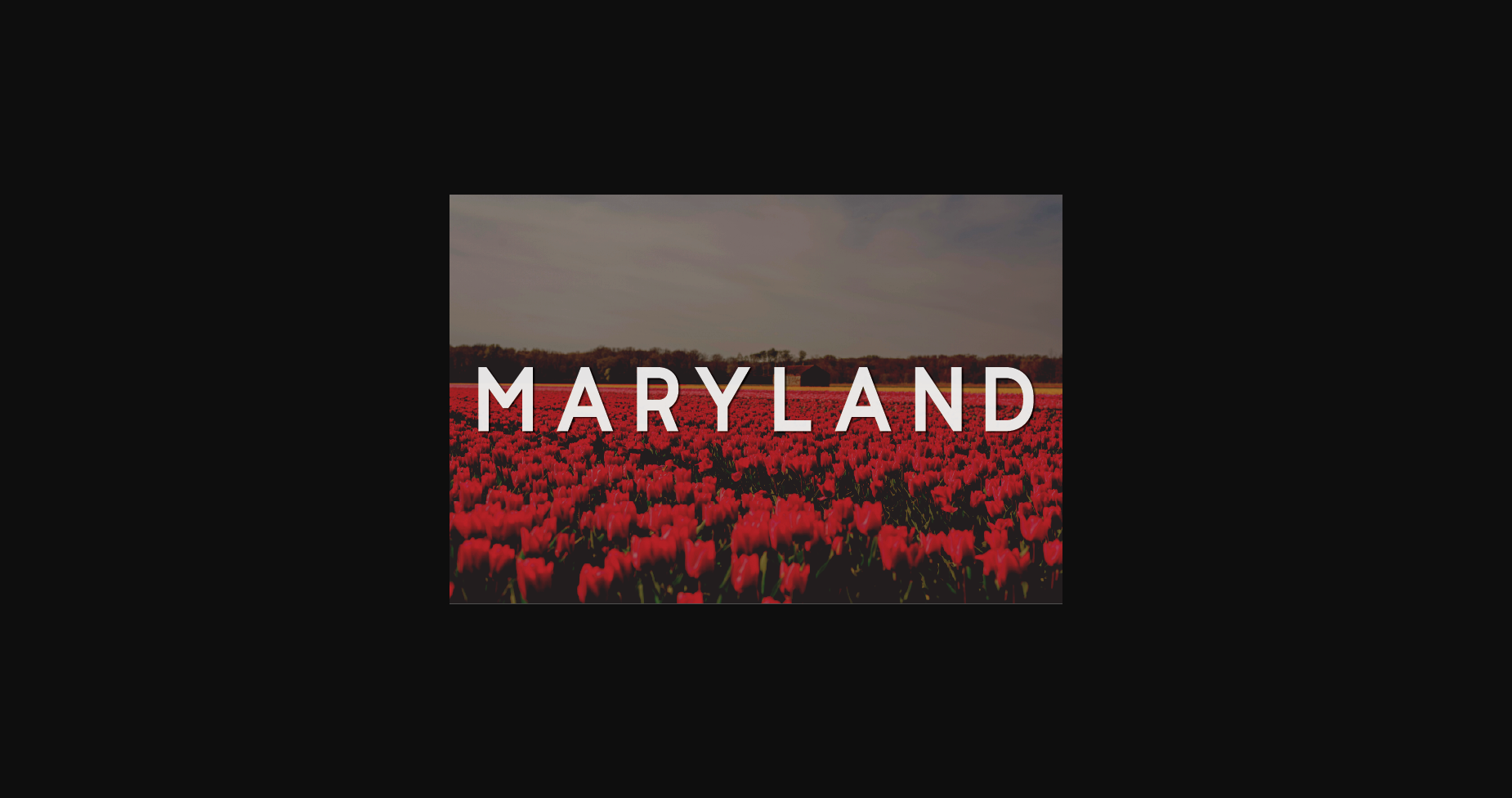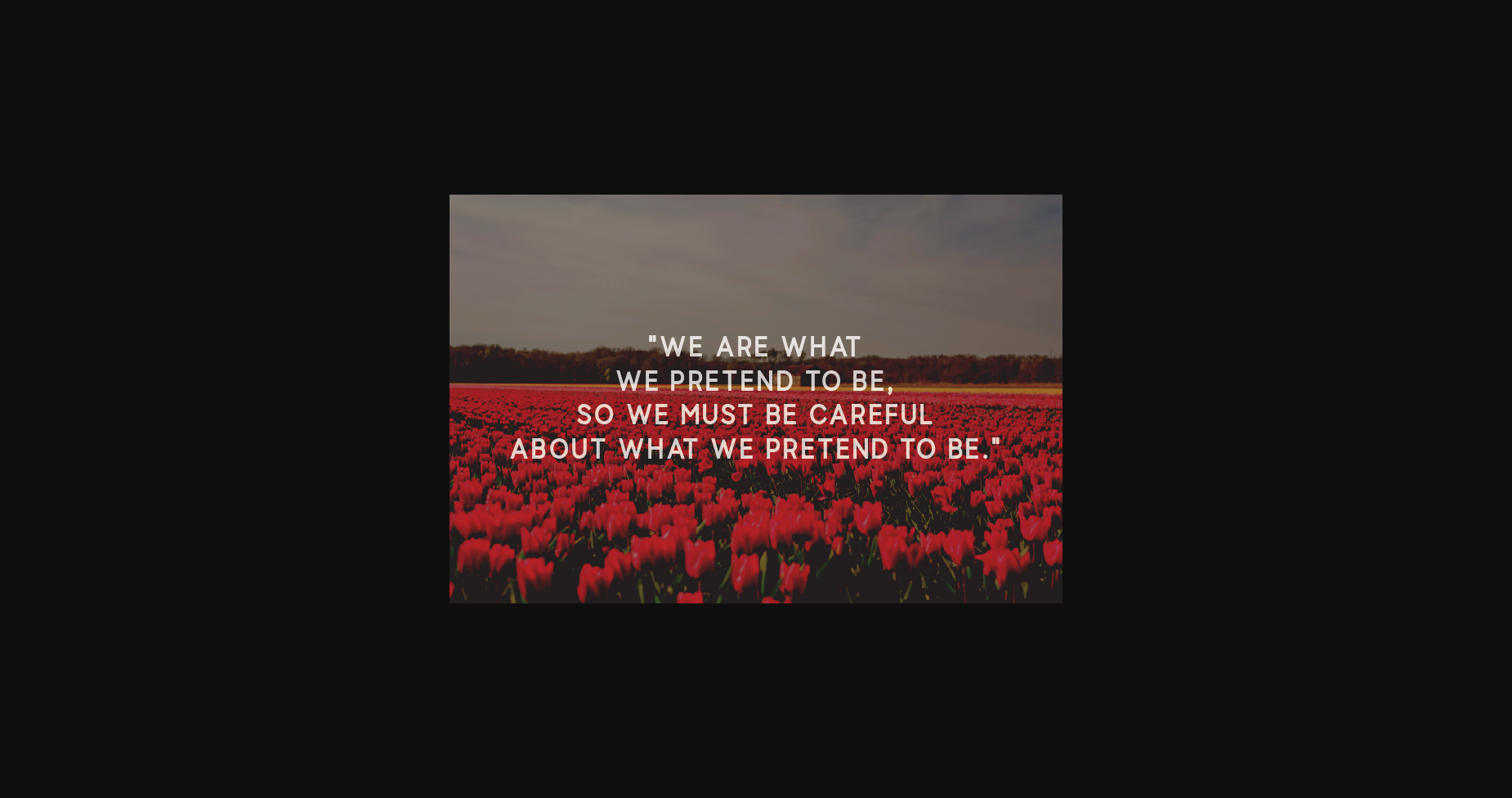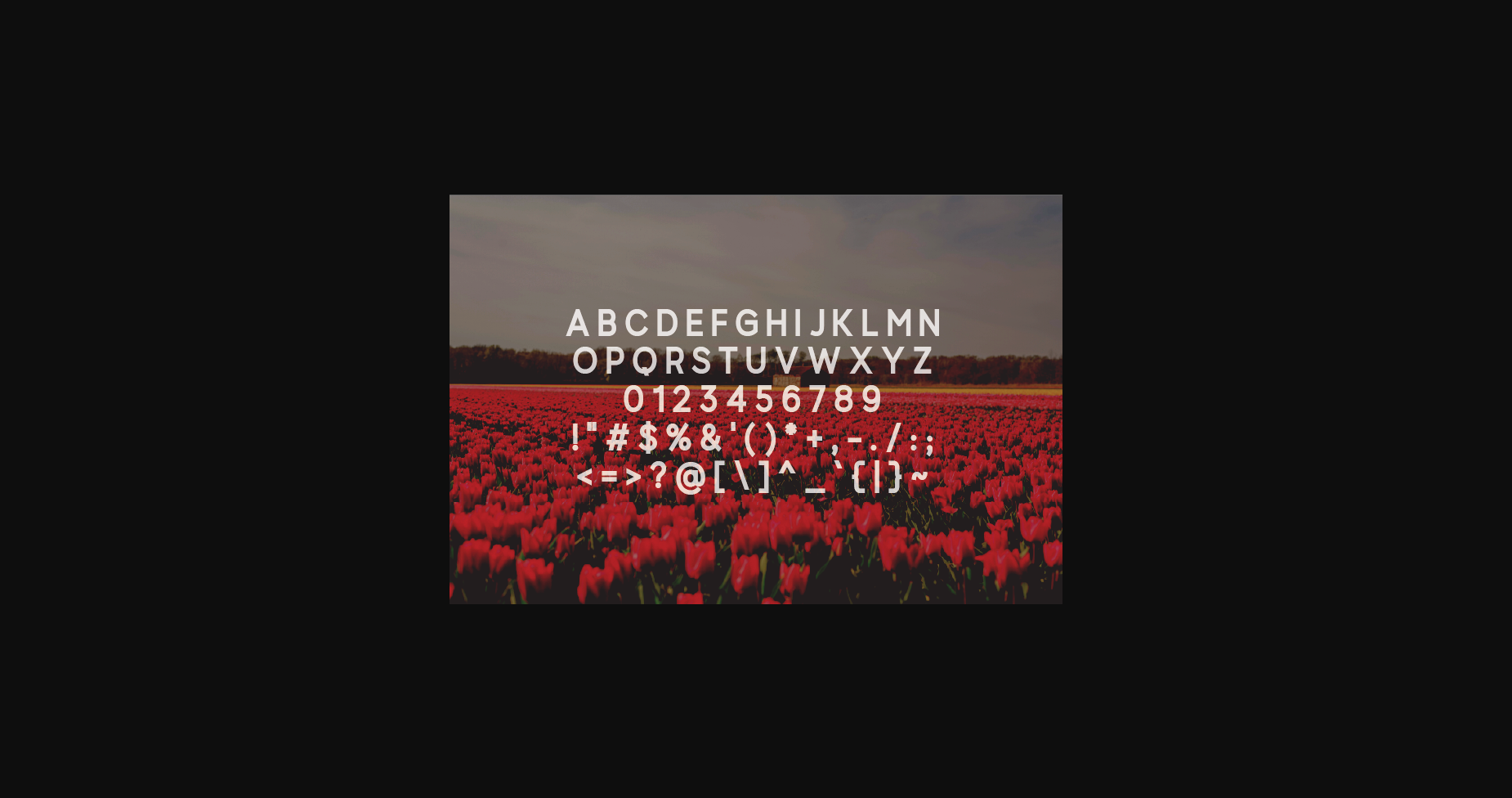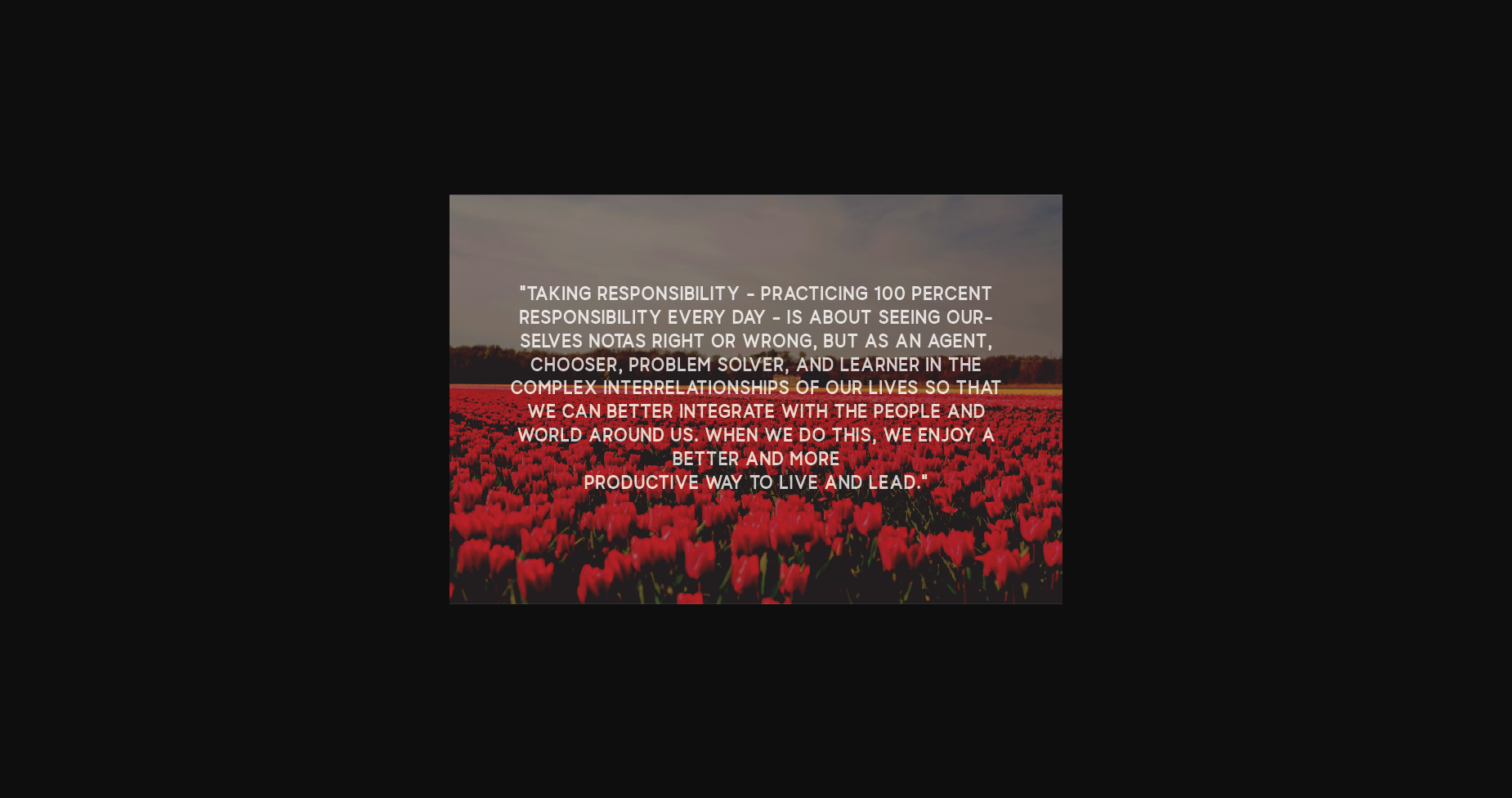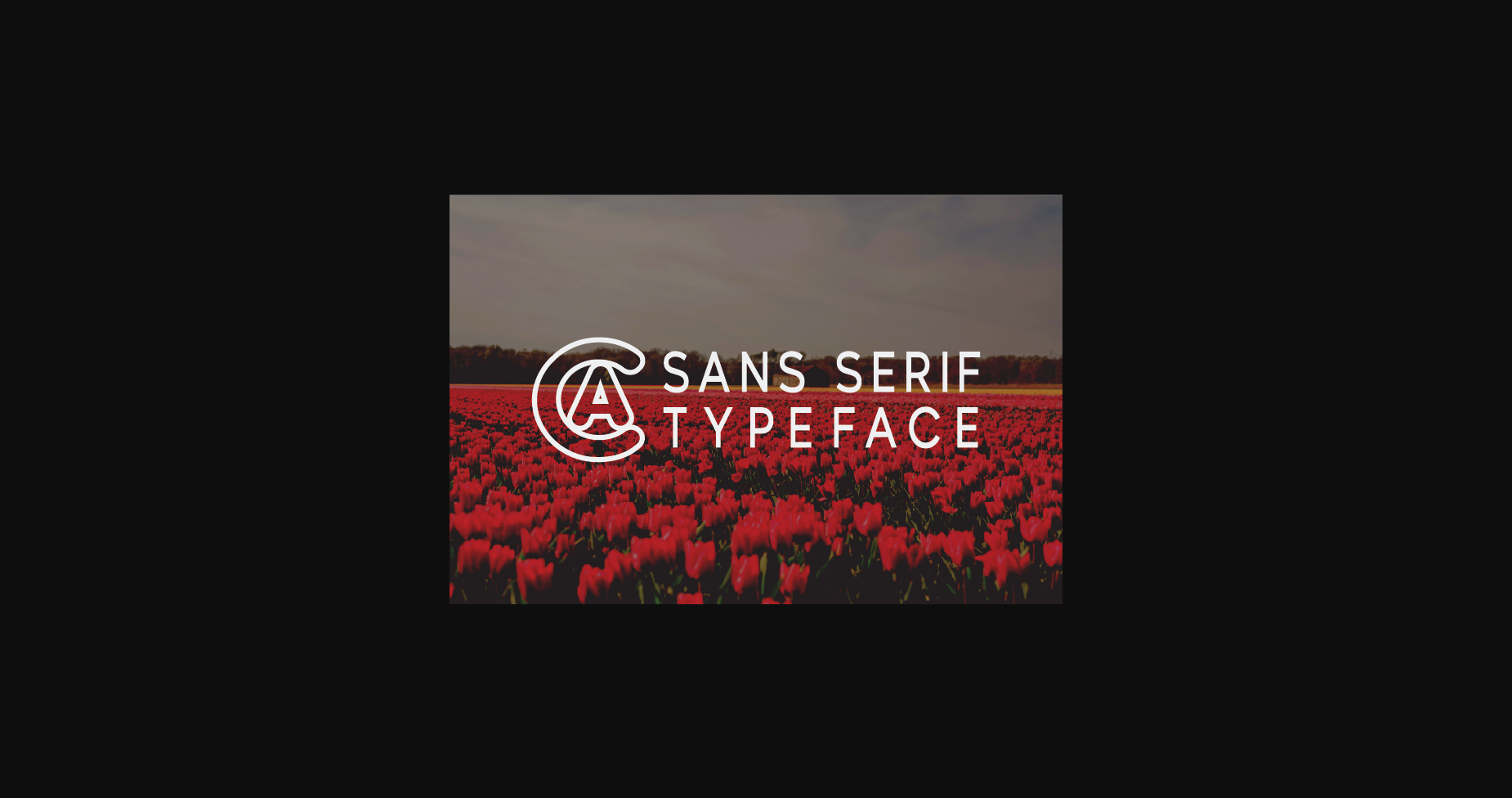
HomeSans Serif FontsMaryland Font Sans Serif Fonts Maryland Font FacebookXPinterestWhatsApp 1 of 7 ... Maryland Font Poster 2... Maryland Font Poster 3... Maryland Font Poster 4... Maryland Font Poster 5... Maryland Font Poster 6... Maryland Font Poster 7... About Maryland Font Maryland is a modern and classy sans serif typeface. This extremely versatile font isperfect for logos, weddings, invitations, quotes, advertisements, print, magazines, and more! DOWNLOAD NOW People also explored Hallo Rainbow Font Angel Wings Font Sabrina Dashwood Font Shaliqa Script Font One Love Font Poster Frame Mockup Vol. 1 Scandinavia Dreamland Font Roses in Barcelona Font Rocking Letters Font 430 0 TagsMaryland Font Previous articleSublimation FontNext articleKentucky Font LEAVE A REPLY Cancel reply Comment: Please enter your comment! Name:* Please enter your name here Email:* You have entered an incorrect email address! Please enter your email address here Website: Save my name, email, and website in this browser for the next time I comment. Personal Use Free BD Algebra Personal Use Free Read more about this font Karmatic Arcade Personal Use Free Read more about this font Huntry Personal Use Free Read more about this font Lumber Personal Use Free Read more about this font BLOG How to Cut Any Font on Cricut: Convert a Font to SVG (Free) Turn any font into a clean SVG so it cuts crisp on Cricut - a quick 3-step workflow using a free font-to-SVG tool. Best Fonts for T-Shirt Design – Top 2025 Picks Modern Sans-Serif Fonts That Brands Love in 2025 How to Install and Use Fonts on Windows, macOS, and Web Projects